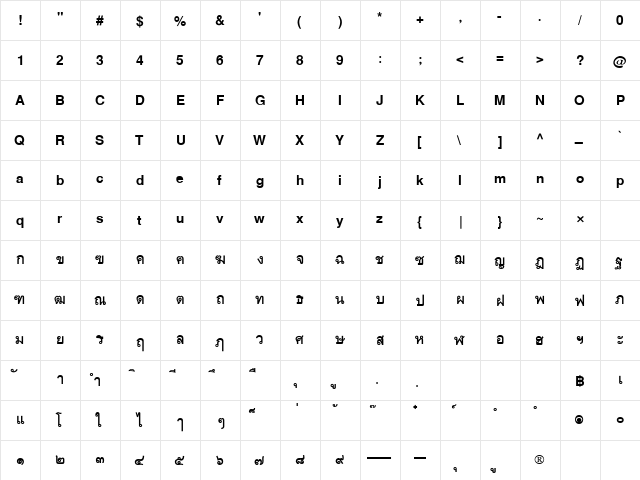
DB ThaiText Bold
Design Context for DB ThaiText Typeface
DB ThaiText offers clean, dependable letterforms without strong stylistic allegiance, making it a practical choice for designers who need flexibility. Its bold stroke weight gives it real presence on the page.